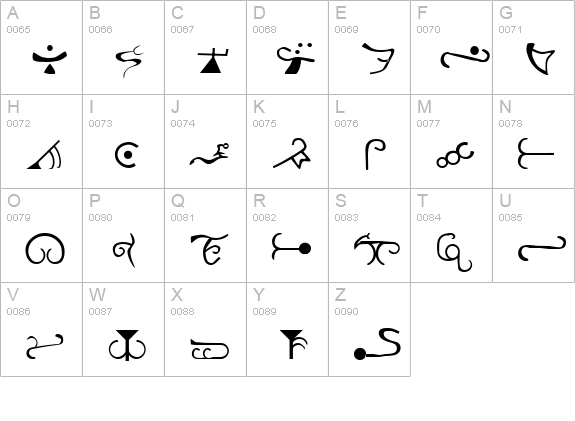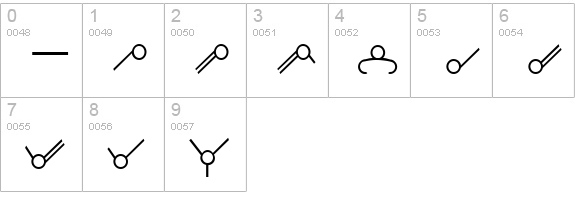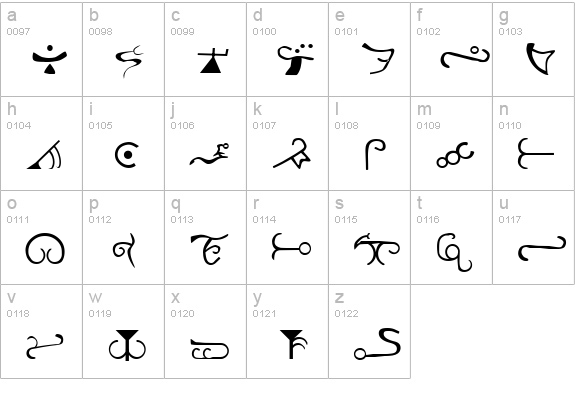
Espruar Elvish FR Font Details
The Espruar Elvish FR font is a beautifully crafted typeface that embodies the elegance and mystique of the Elvish language in the Forgotten Realms universe. With intricate details and flowing curves, this font captures the essence of Elven script in a truly mesmerizing way. Not only does the Espruar Elvish FR font evoke a sense of ancient magic and wisdom, but it also offers a touch of whimsy and enchantment to any text it adorns. Its graceful lines and delicate flourishes make it a perfect choice for any project that seeks to convey a sense of mystery and wonder. Best of all, the Espruar Elvish FR font is freely available to download at FontsMarket.com, making it easily accessible to all who wish to add a touch of Elven charm to their designs. Whether you're a fan of the Forgotten Realms or simply appreciate the beauty of Elvish script, this font is sure to captivate and inspire.